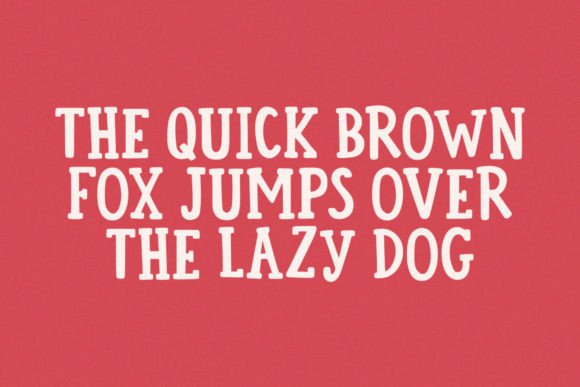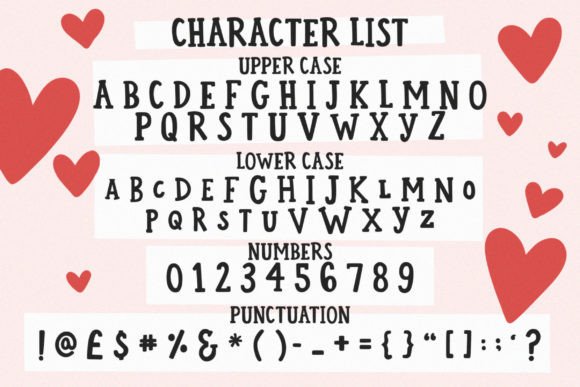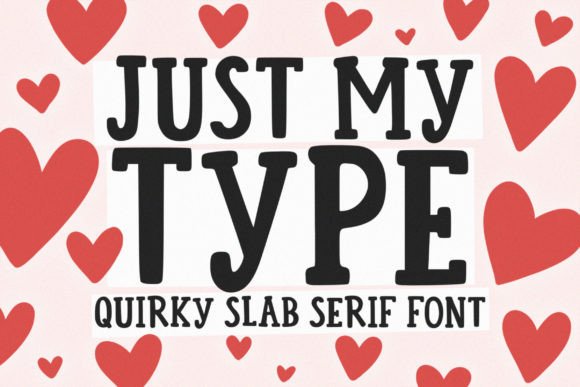
Just My Type Font
About Just My Type Font
Just My Type is an all-caps bold Slab Serif typeface perfect for any fun quirky design work! This font can be used for anything such as T-Shirt designs, phone cases, greeting cards, invitations, mugs and so much more! Get creative!